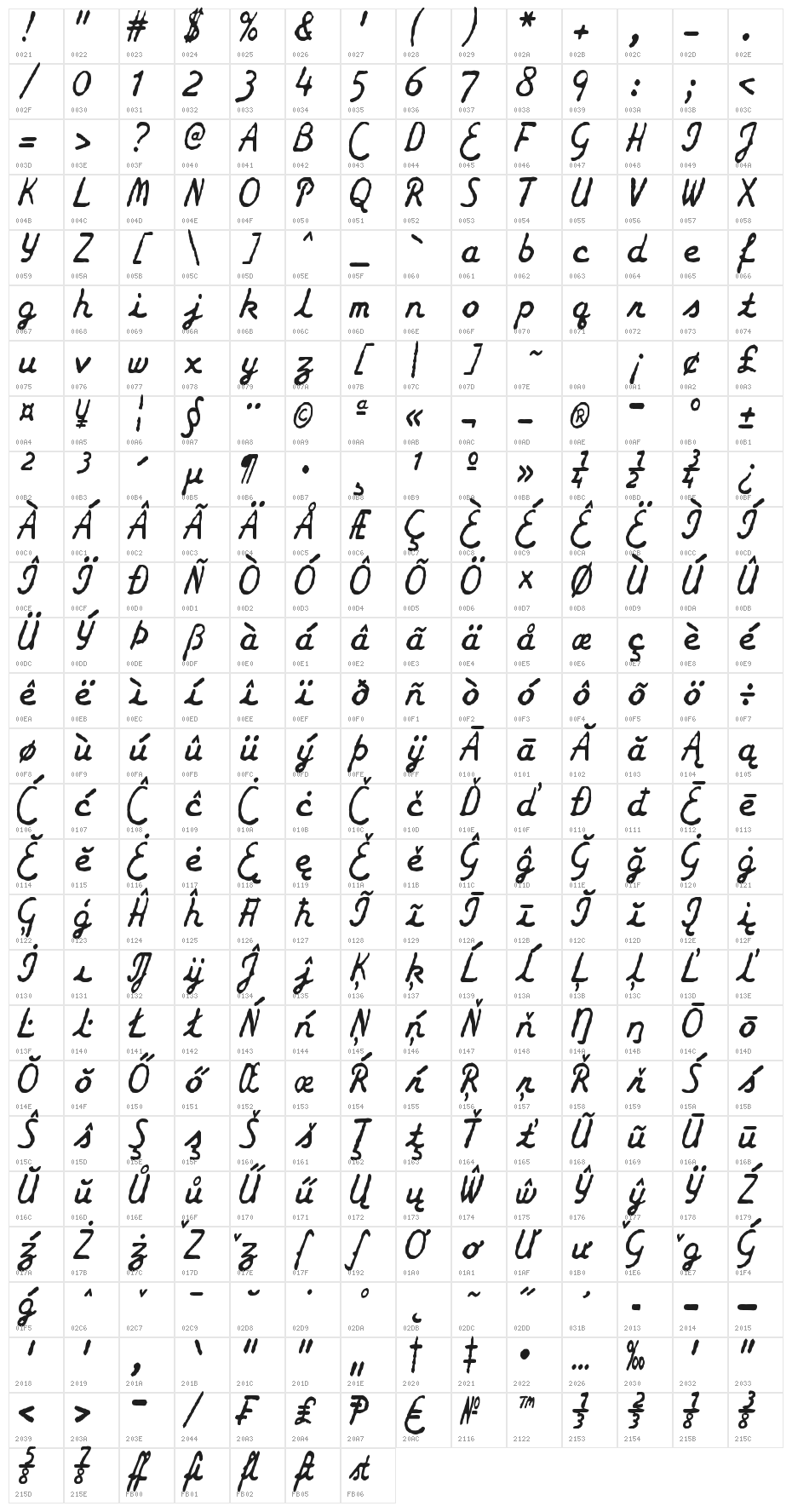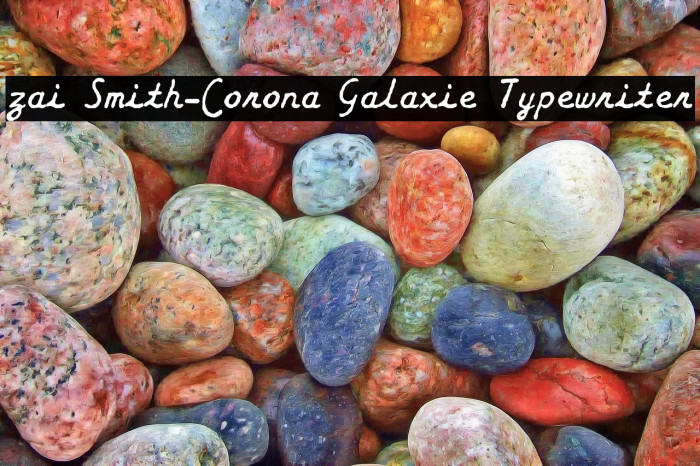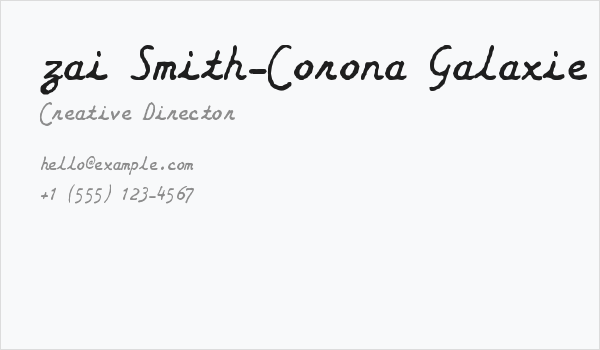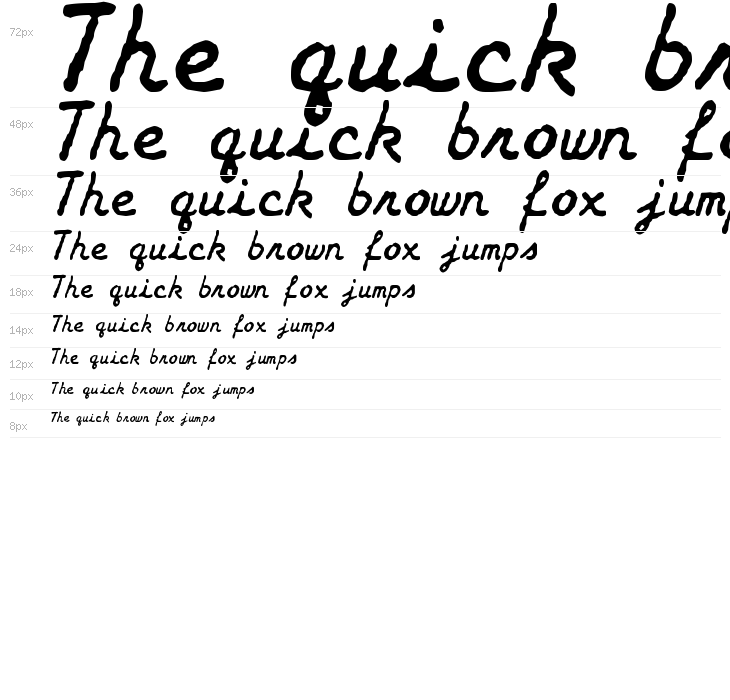
zai Smith-Corona Galaxie Typewriter Font
zai Smith-Corona Galaxie Typewriter Description
This font exudes a vintage typewriter aesthetic with a handwritten twist. The characters are slightly irregular, giving it a charming, authentic feel reminiscent of old-school typewritten documents. The uppercase letters are bold and distinct, while the lowercase letters maintain a consistent flow, enhancing readability. Numbers and special characters are crafted with the same attention to detail, ensuring a cohesive look across all text. The font's unique style makes it ideal for projects that require a touch of nostalgia or a personal, handcrafted appearance.
| Use Case | Headlines, Logos, Creative writing |
| Proposed Projects | Ideal for retro-themed designs, personal letters, creative writing projects, and branding that seeks a nostalgic or handcrafted touch. |